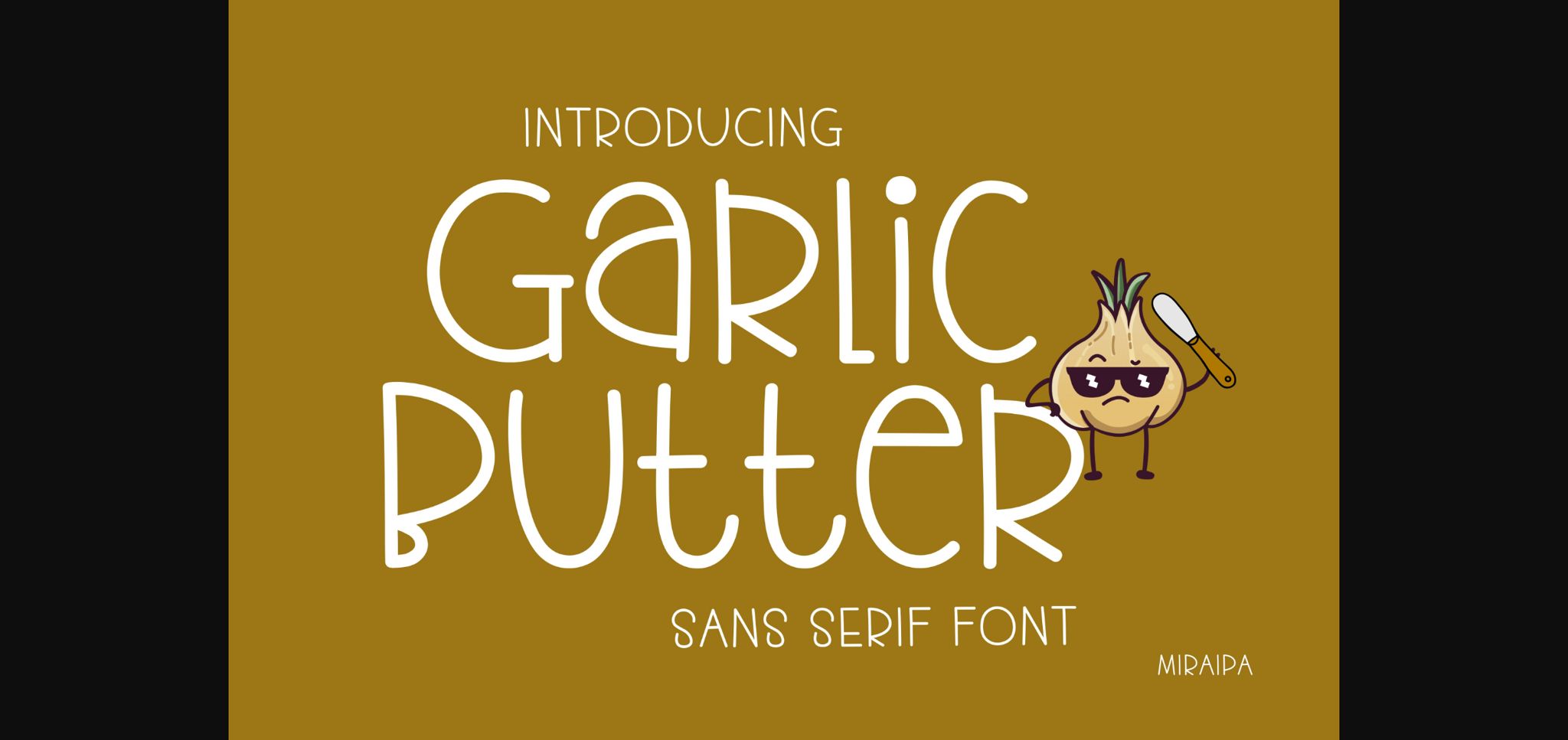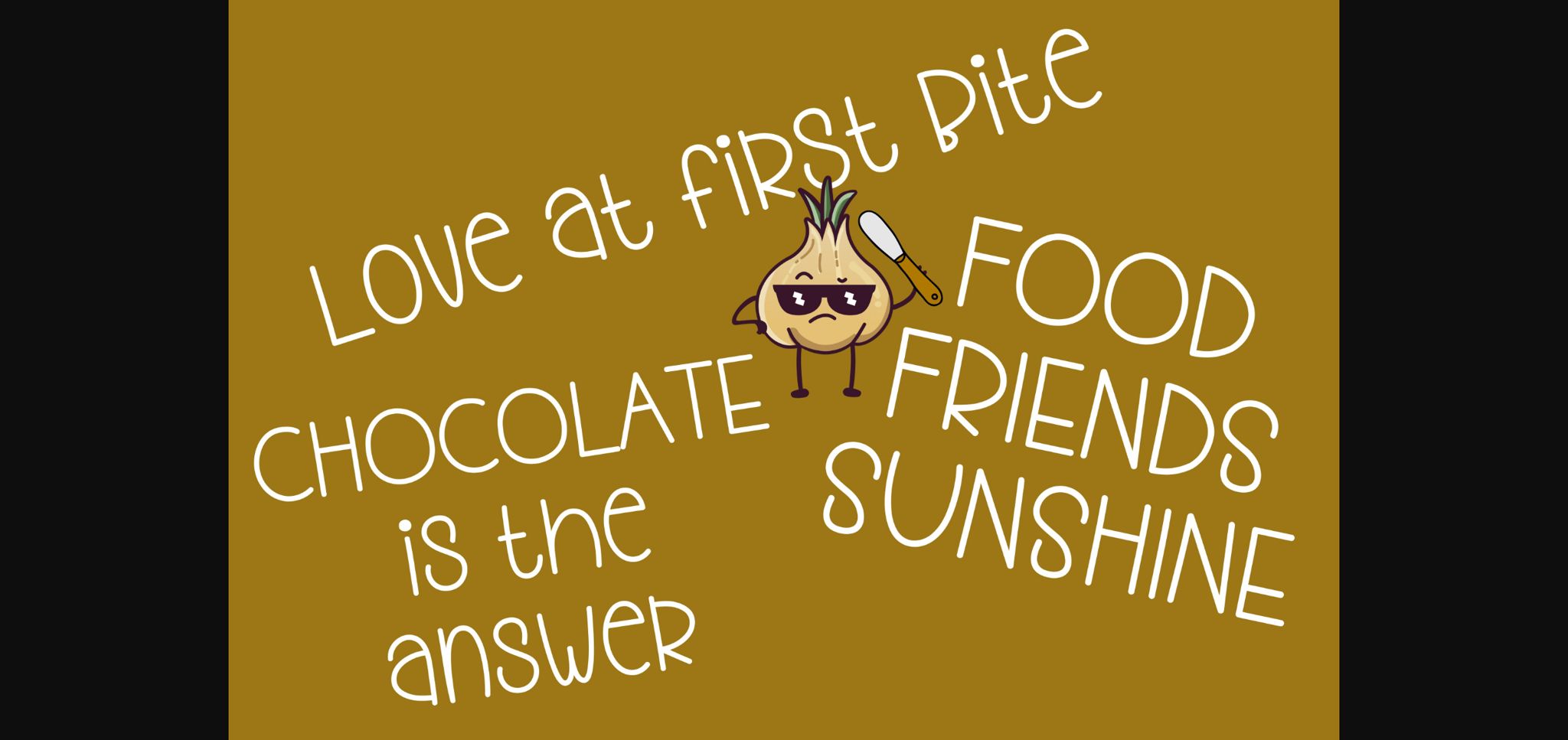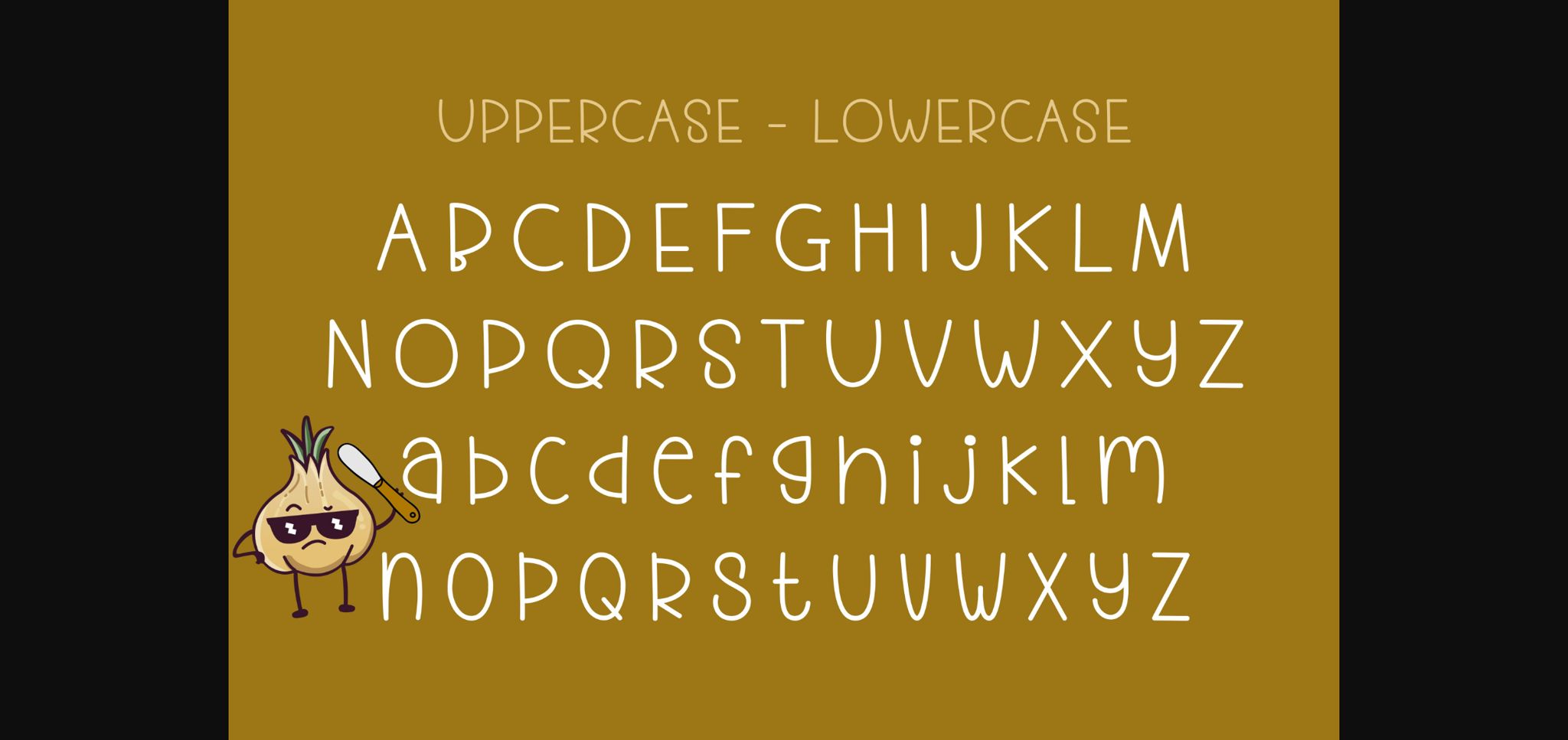
About Garlic Butter Font
Garlic Butter is a fun and cute handwritten sans serif font. Not too thin and not too thick, balanced and varied, this font was designed to enhance the beauty of your projects.